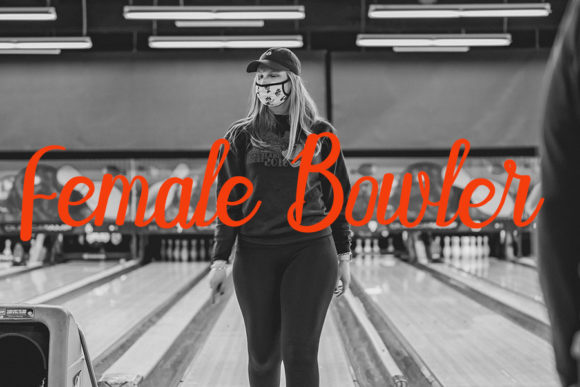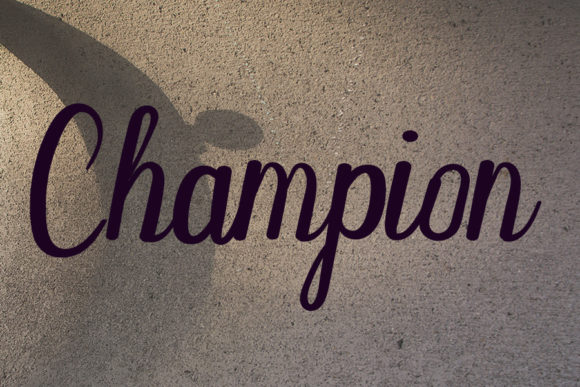
Bowling Ball Font
db-ku.com - Script & Handwritten -- Bowling Ball is a beautiful and versatile handwritten font with a unique feel and a stunning impact. It will add a lovely spark to any design or creative project you have coming up.